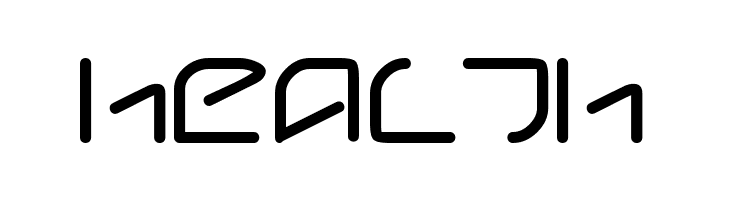
A whimsical and decorative font with ornate swirls and star embellishments.
A whimsical font with letters inside heart shapes with wings, perfect for romantic themes.
A decorative font with bold letters and intricate wing embellishments.
A bold, decorative font with cloud and snowflake motifs for a wintry feel.
A playful font with characters inside witch's hats, ideal for magical themes.
A whimsical, decorative font with witch-themed elements.
A bold decorative font with uppercase letters in circles and feminine symbols.
A playful font with each letter encased in a yo-yo design, perfect for fun and youthful projects.
A decorative font showcasing zodiac symbols in a modern, illustrative style.
A playful, hand-drawn font with irregular, energetic strokes.
A playful, bold, and cartoonish font with a hand-drawn style.
A bold, futuristic font with geometric and dynamic design elements.
A bold, decorative font with intricate patterns and a vintage flair.
A modern gothic font with sharp serifs and elongated strokes, exuding elegance and mystery.
A fluid, cursive script font with elegant, flowing lines and a sophisticated style.
A highly creative and eclectic font with unique designs for each character.
A playful, hand-drawn font with a whimsical and dynamic style.
A playful, hand-drawn font with quirky, bold characters.
An ornate blackletter font with sharp, angular lines and decorative flourishes.
A tall, narrow, and modern font with consistent stroke width.
A modern, geometric font with a 3D outline effect, offering a unique and bold appearance.
A tall, narrow, and modern font with clean lines and uniform stroke width.